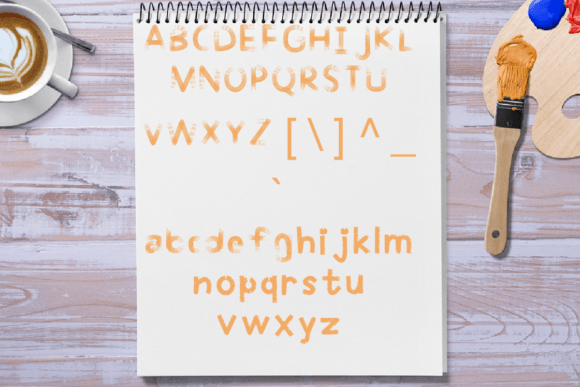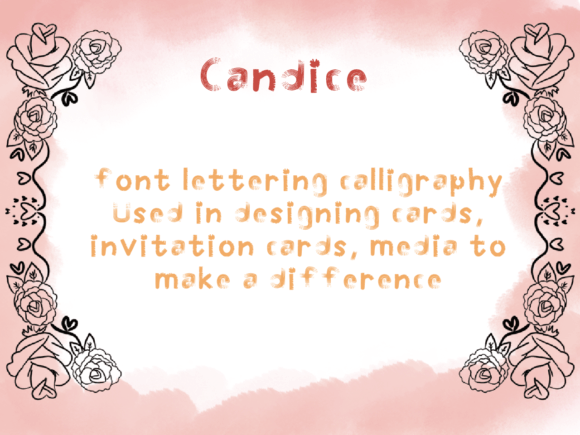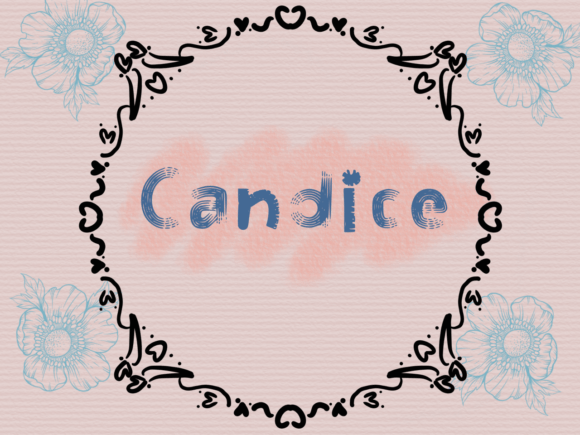
Candice Font: Adding a Touch of Handmade Personality to Your Designs
In the world of typography, fonts play a crucial role in conveying the tone and personality of a design. For designers and crafters looking to add a unique touch to their projects, the Candice font is an excellent choice. This bold, brush handwritten font boasts a distinctive handmade feel that can instantly elevate your designs and make them stand out.
What is Candice Font?
Candice is a carefully crafted font that mimics the look and feel of handwritten text. Its bold and expressive strokes give it a unique character that is both eye-catching and easy to read. The font’s handmade feel makes it perfect for designs that require a personal touch, such as crafty projects, invitations, and social media graphics.
Key Features of Candice Font
• Bold and Expressive: Candice font features bold and expressive strokes that give it a unique and eye-catching appearance.
• Handmade Feel: The font’s handmade feel adds a touch of personality to your designs, making them stand out from the crowd.
• Easy to Read: Despite its bold and expressive nature, Candice font is surprisingly easy to read, making it perfect for designs that require a clear message.
• Versatile: Candice font can be used in a variety of design projects, from crafty endeavors to digital graphics.
Uses of Candice Font
Candice font is an incredibly versatile font that can be used in a wide range of design projects. Here are some ideas to get you started:
• Crafting and Scrapbooking: Add a personal touch to your crafting and scrapbooking projects with Candice font.
• Invitations and Announcements: Make your invitations and announcements stand out with the bold and expressive strokes of Candice font.
• Social Media Graphics: Use Candice font to add a touch of personality to your social media graphics and make them more engaging.
• Branding and Packaging: Use Candice font to create unique and eye-catching branding and packaging designs.
Tips for Using Candice Font
To get the most out of Candice font, here are some tips to keep in mind:
• Use it Sparingly: While Candice font is bold and expressive, it can be overwhelming if used excessively. Use it sparingly to add emphasis and create visual interest.
• Pair it with Other Fonts: Candice font pairs well with clean and simple fonts. Try pairing it with a sans-serif font to create a striking contrast.
• Experiment with Colors: Candice font looks great in a variety of colors. Experiment with different colors to find the one that works best for your design.
In conclusion, Candice font is an excellent choice for designers and crafters looking to add a unique touch to their projects. Its bold and expressive strokes, handmade feel, and ease of readability make it perfect for a wide range of design projects. By following the tips outlined above, you can get the most out of Candice font and create stunning designs that showcase your creativity and personality.
Get Creative with Candice Font